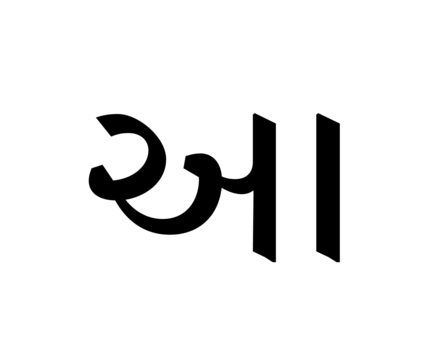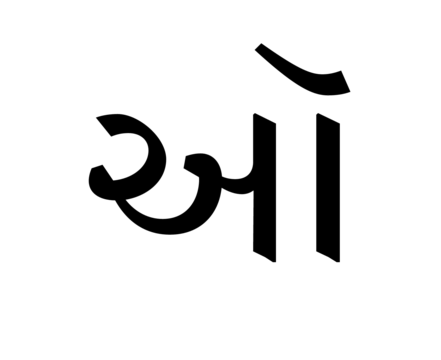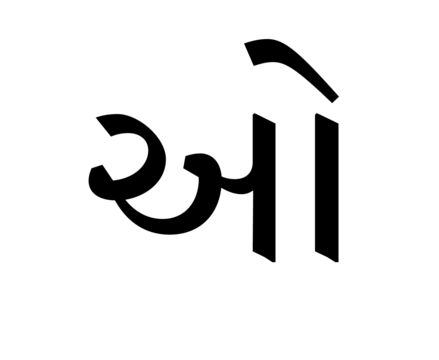
Saguna is a hard working text type family that has been crafted for all print environments where clarity and a strong visual hierarchy are required. The family contains five upright weights that strengthens it's ability in the composition of longer text settings as well as bringing flexibility and choice to the user. It's subtle appearance fashions a contemporary aesthetic whilst it's construction lays deeply rooted in classical Gujarati calligraphy and structure.
Family Name | Saguna Gujarati |
Designer(s) | Jonny Pinhorn |
Available Style | Light, Regular, Medium, Semibold, Bold |
Classification | Serif |
Supported Languages | Gujarati |